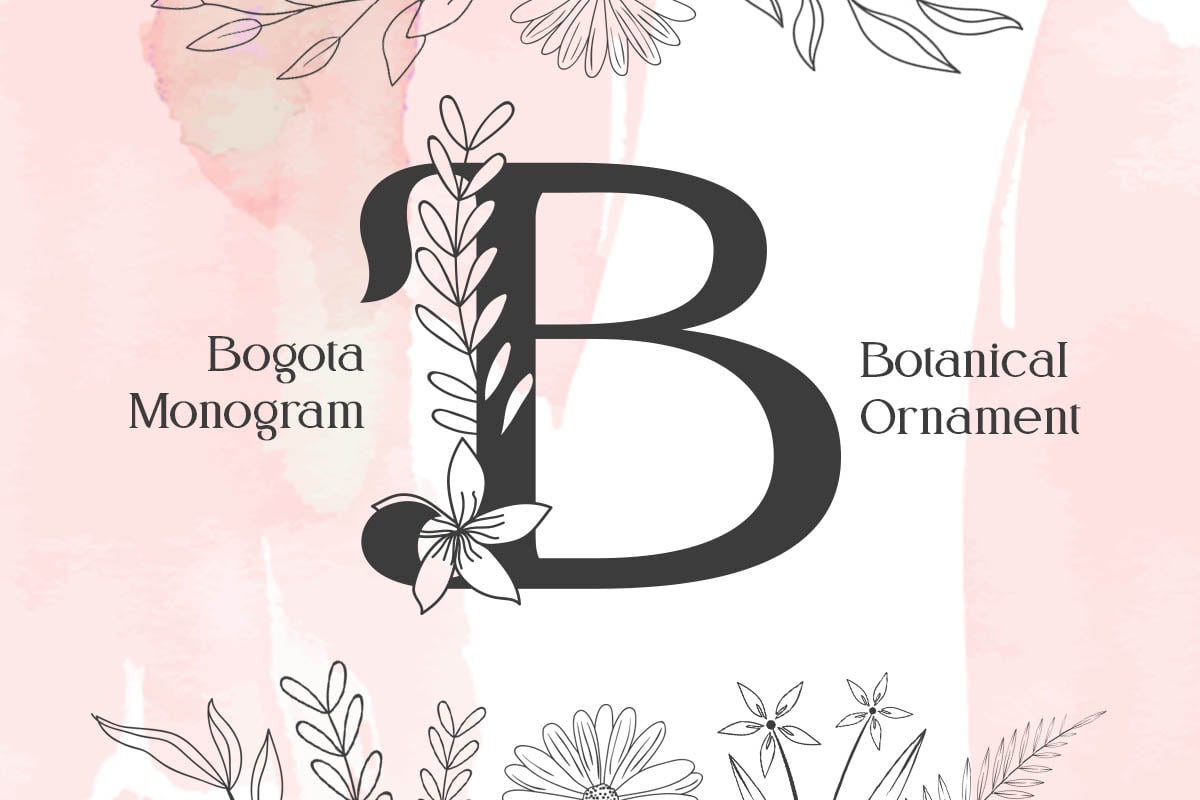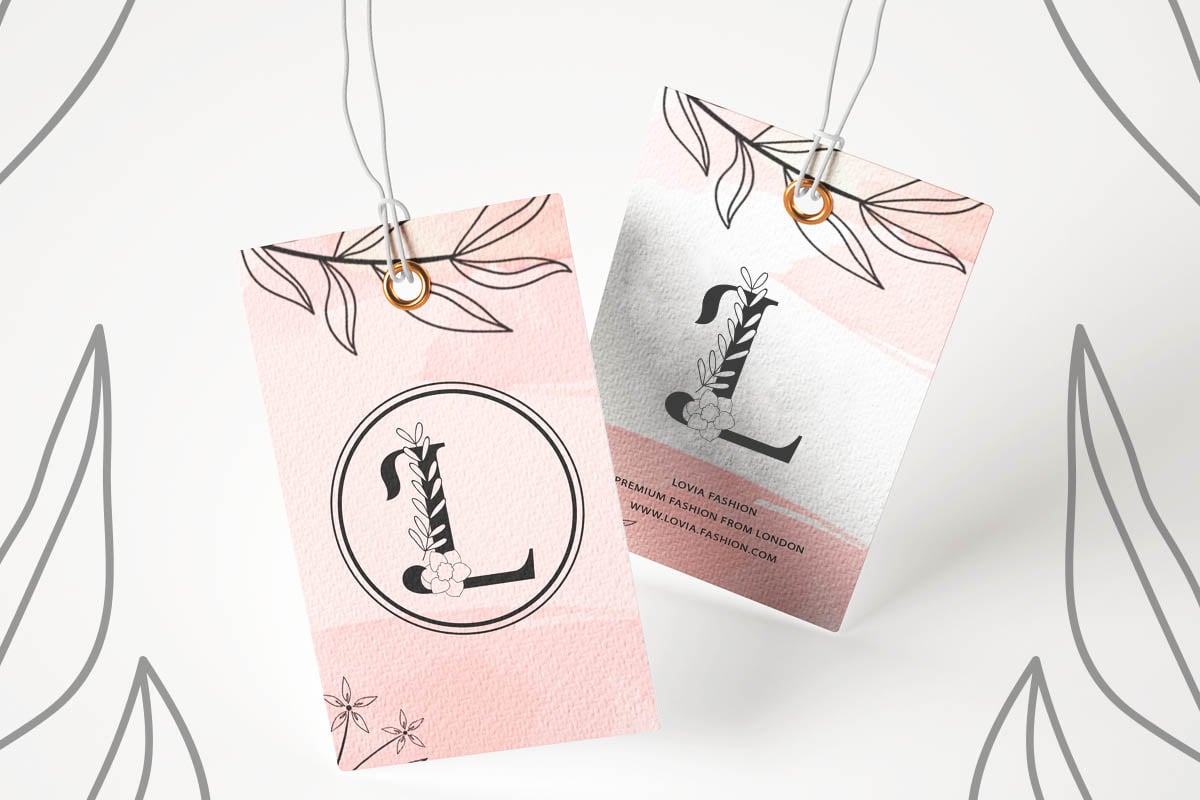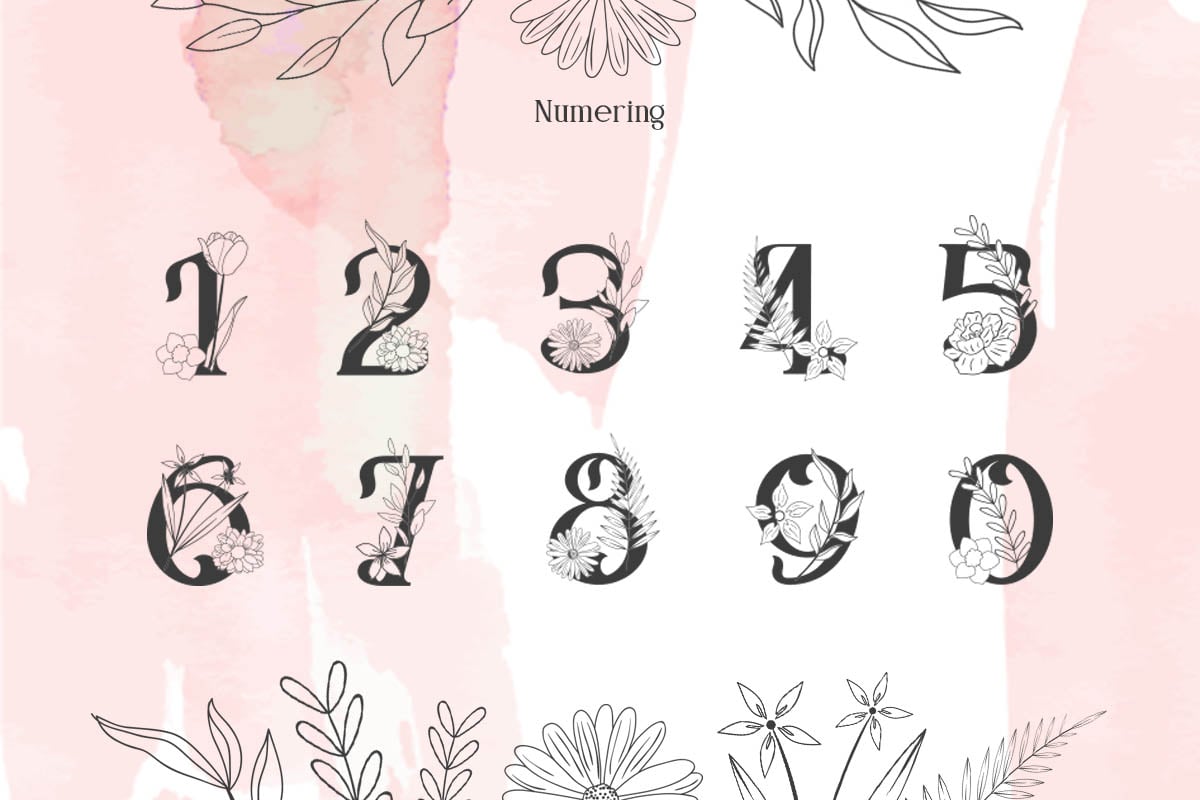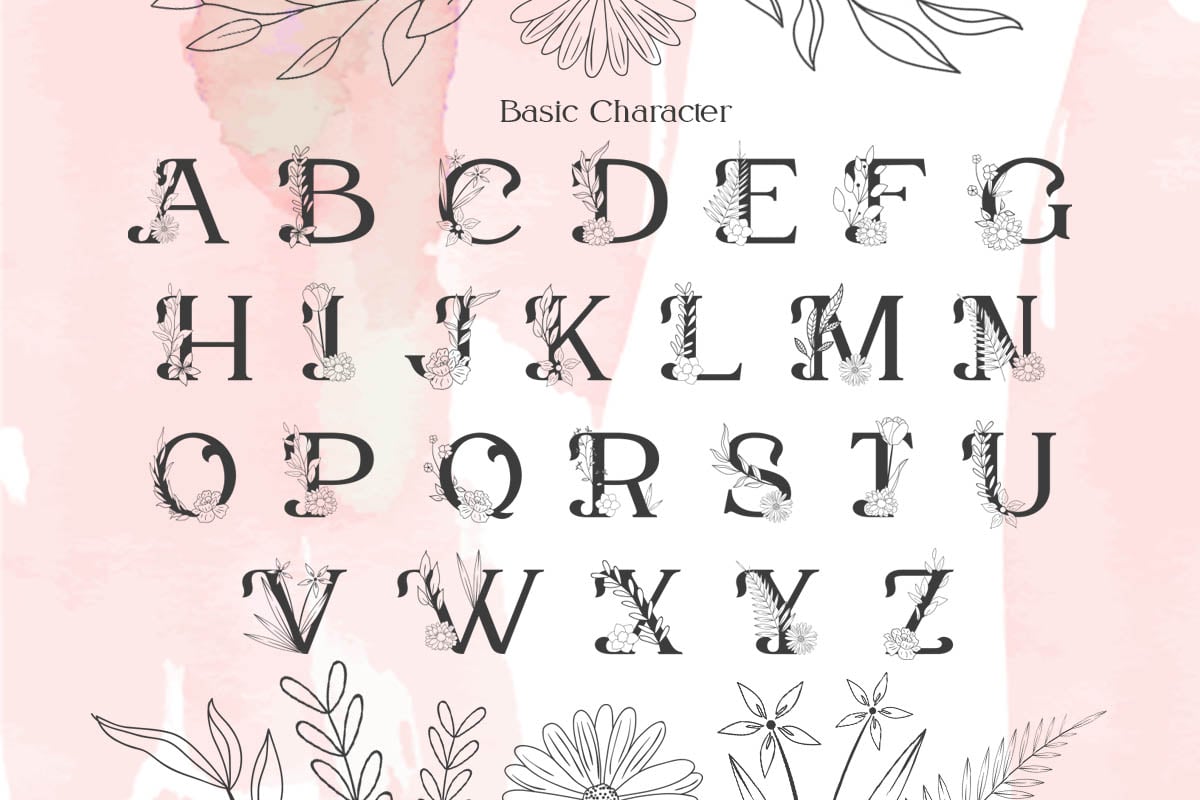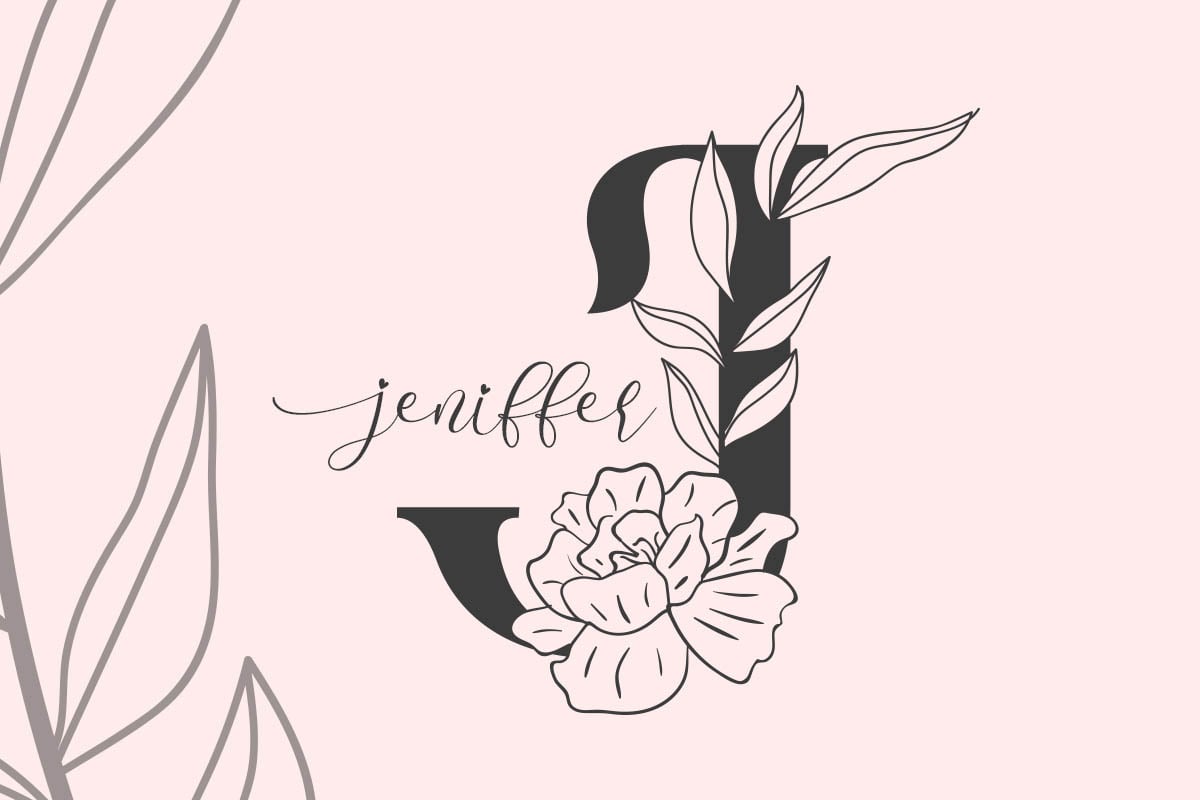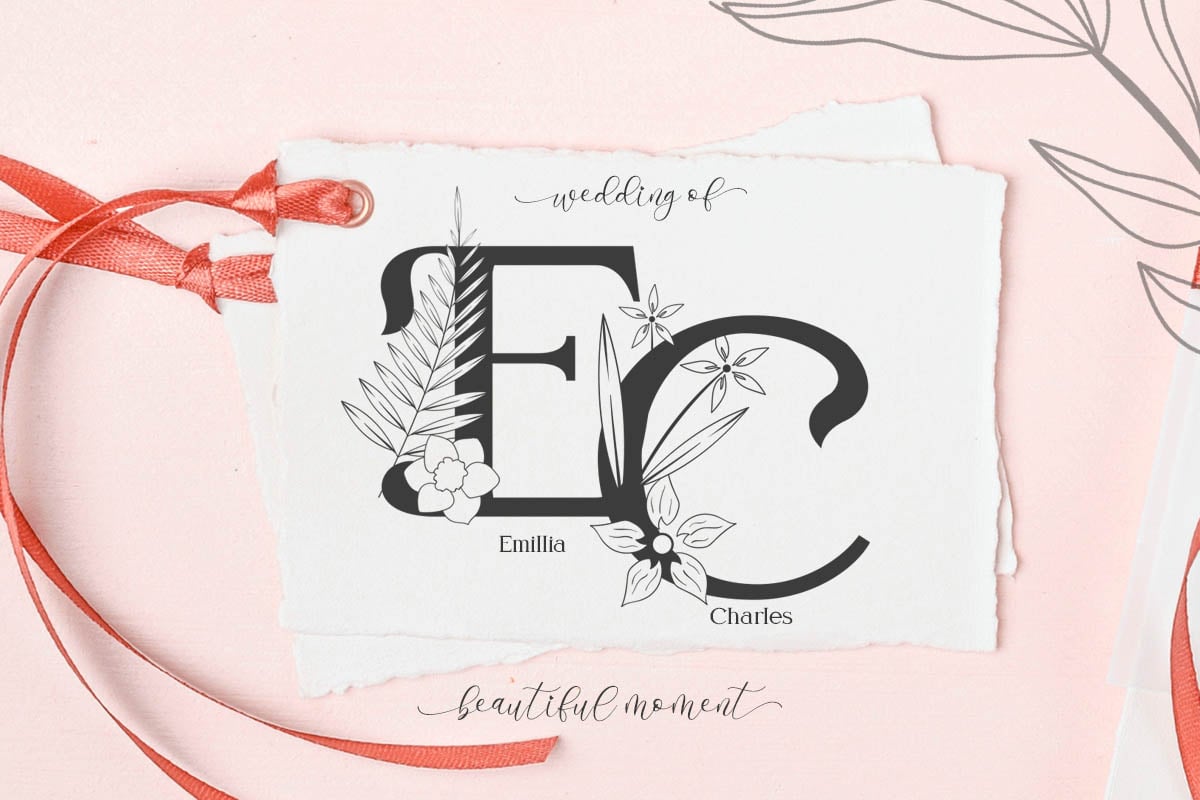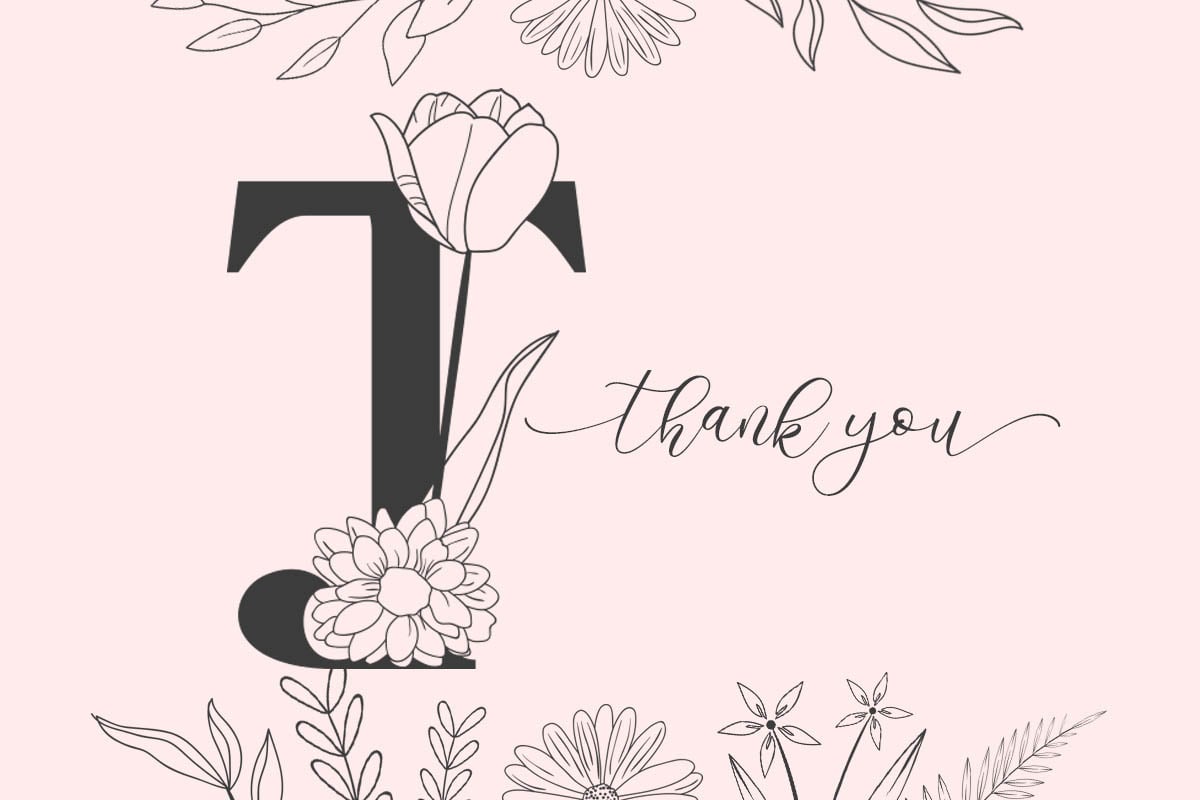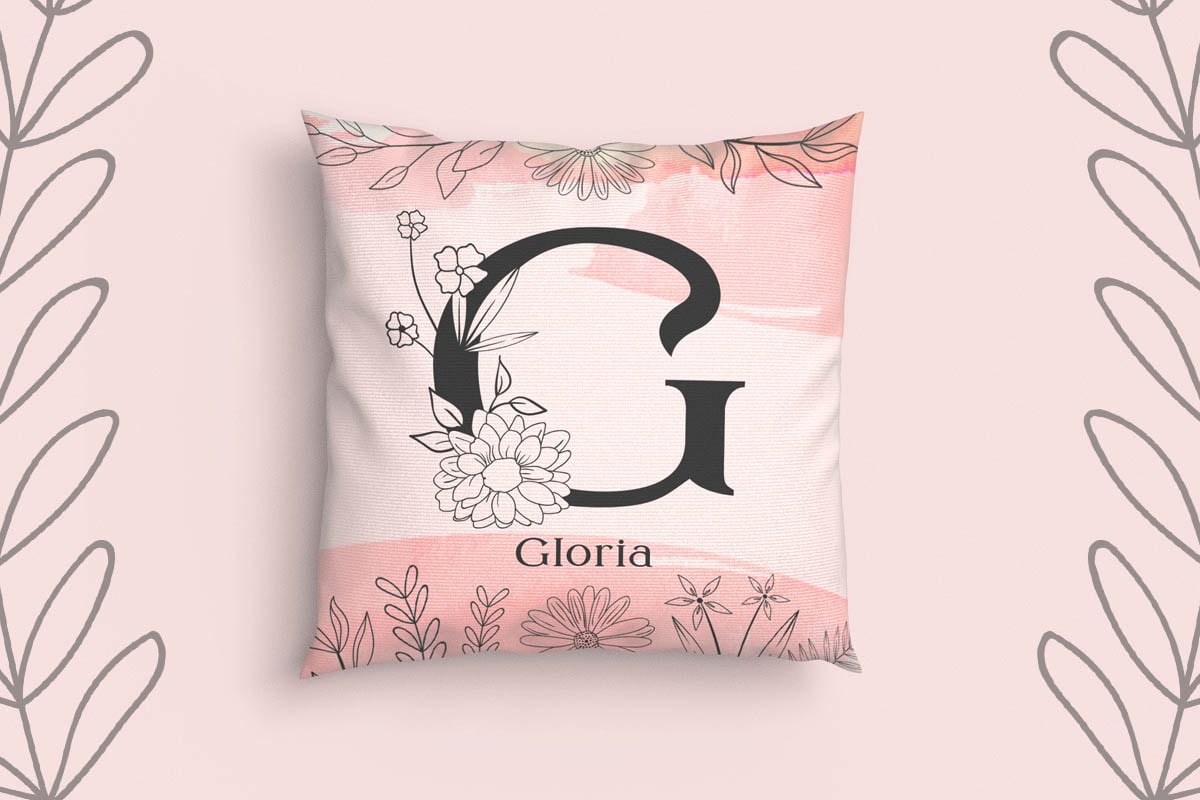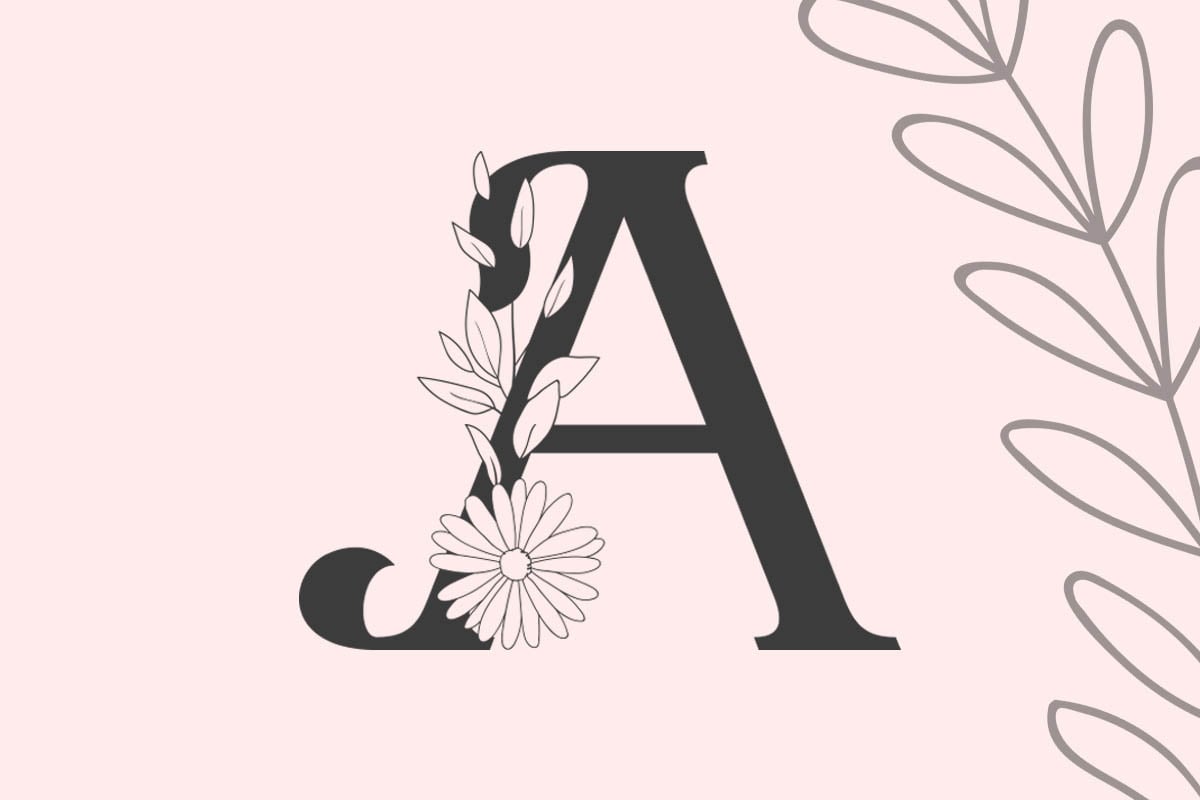
Bogota Monogram Font
Bogota Monogram is a gorgeous monogram font. It features flower-themed characters that will add a romantic touch to your projects. Fall in love with its authentic feel and use it to create gorgeous wedding invitations, beautiful stationary art, eye-catching social media posts, and cute greeting cards.